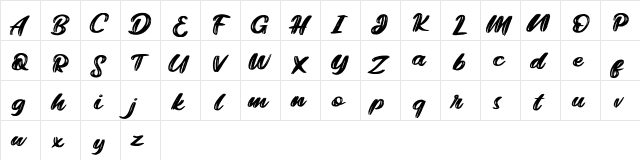
Bright FREE Regular Font Preview
Bright FREE Regular
Bright FREE Regular Font Details
Design Context for Bright FREE Typeface
Bright FREE is a composed and adaptable typeface that performs quietly and consistently across a wide range of design contexts.